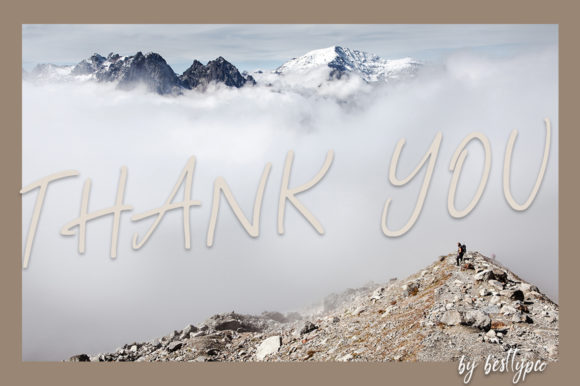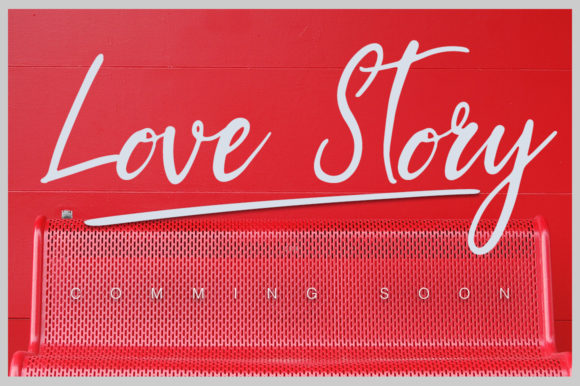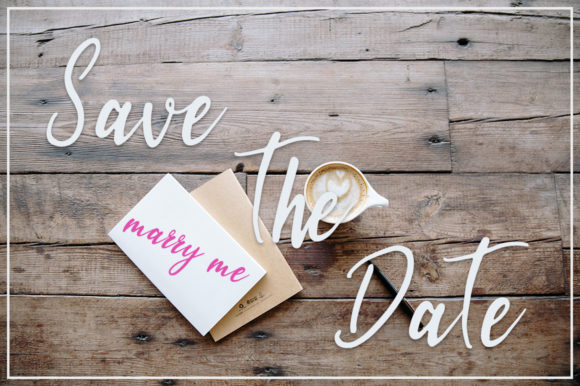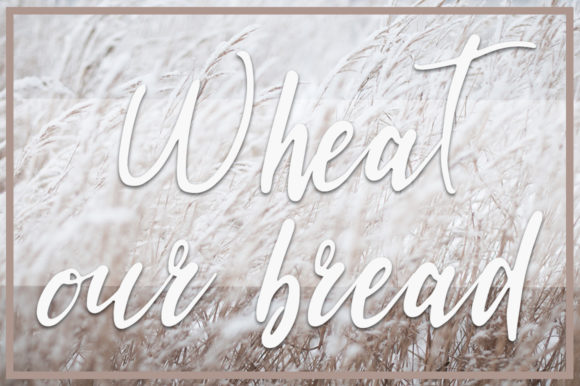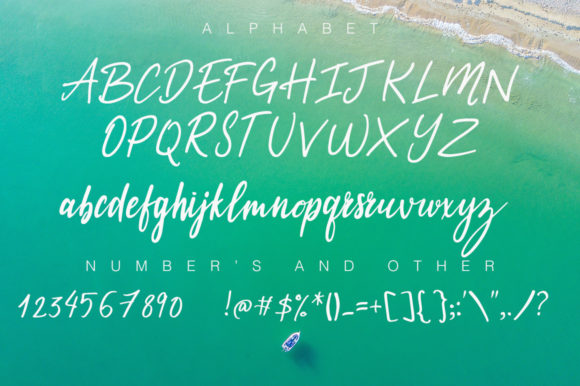
Script Fonts Kalmaros Font 0 152 FacebookTwitterPinterestWhatsApp 1 of 6 Kalmaros Font Poster 2... Kalmaros Font Poster 3... Kalmaros Font Poster 4... Kalmaros Font Poster 5... Kalmaros Font Poster 6... About Kalmaros Font Kalmaros is a fresh calligraphy font. It will look great in greeting cards, branding materials, business cards, quotes, posters, and more! DOWNLOAD NOW